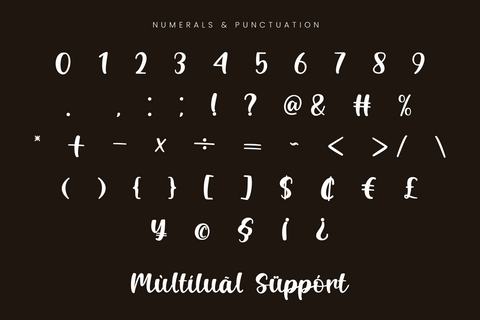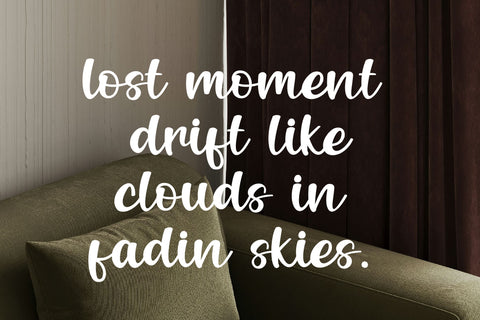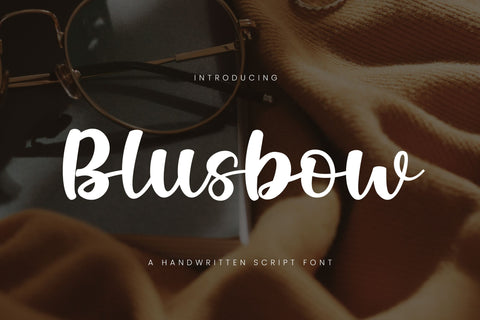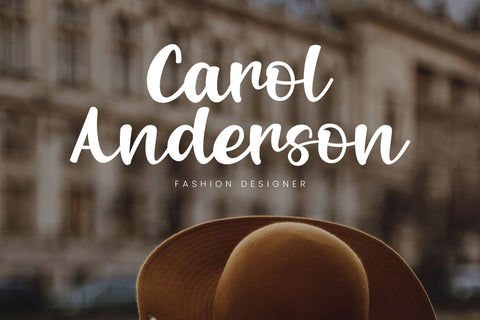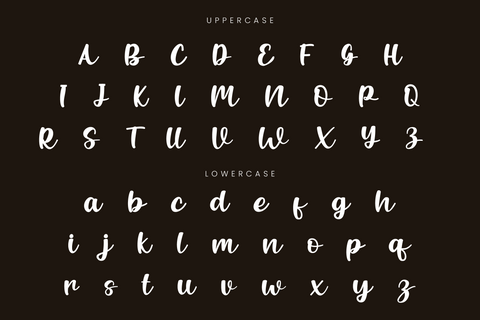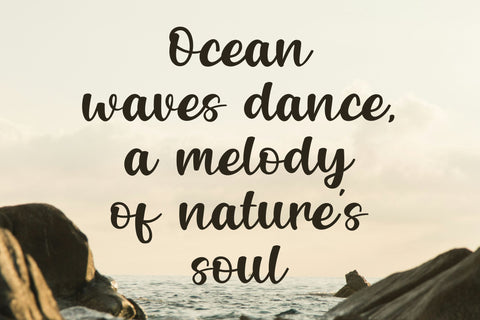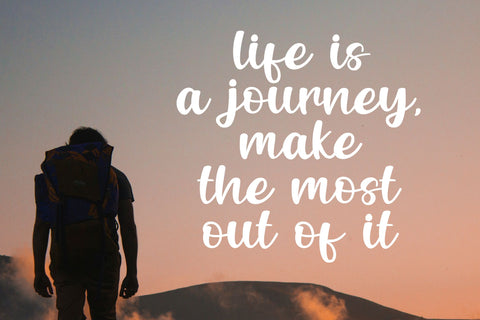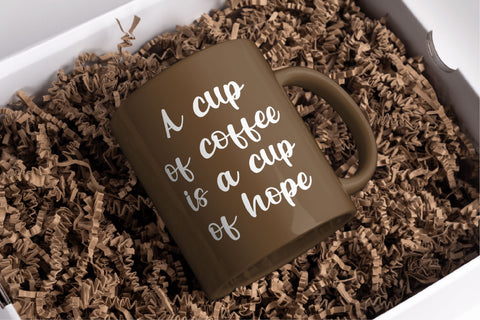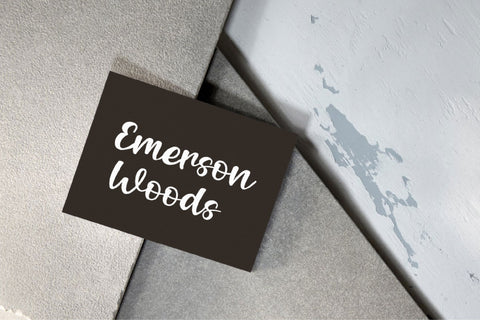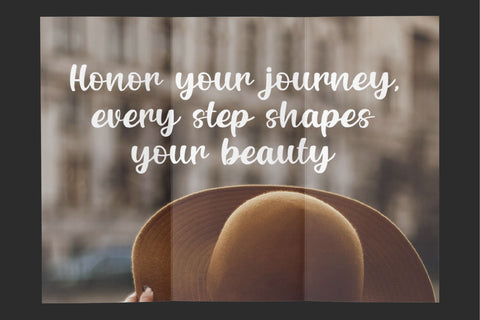
Blusbow – Handwritten Script Font
Blusbow is a cute and simple handwritten. This font is PUA encoded, which means you can access all of the glyphs with ease!